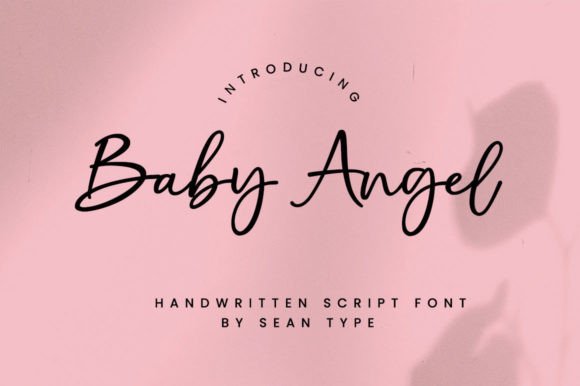
Live your creative dreams with Baby Angel – a script font that exudes a touch of luxury and a dash of enchantment. Each letter dances across the page like a graceful ballet, expressing both elegance and a sense of playfulness. Inspired by the world of high-end fashion and crafted with meticulous care, Baby Angel is a true masterpiece that will add a touch of magic to your designs.
Step into the realm of elegance and sophistication with Baby Angel – a font that weaves a tapestry of emotions, captivating your audience with its every stroke. Let your designs take flight and leave a lasting impression on the hearts of your viewers. It's a font that speaks volumes, whether you're crafting a captivating invitation, a stunning fashion logo, or a project that demands a personal touch.
Baby Angel is not just a font; it's an exquisite fusion of art and technology. Each letter is lovingly crafted, with curves that flow like a gentle breeze and delicate flourishes that add a hint of whimsy. It's a font that captures the essence of timeless beauty, evoking a sense of nostalgia and romance in your designs.
With Baby Angel, you're not just downloading a font; you're embarking on a creative journey where your imagination will soar, and your designs will shine like stars in the night sky. This font is more than a tool; it's an extension of your artistic expression, a brushstroke that brings life to your vision. Embrace the magic of Baby Angel and let your creativity flourish.